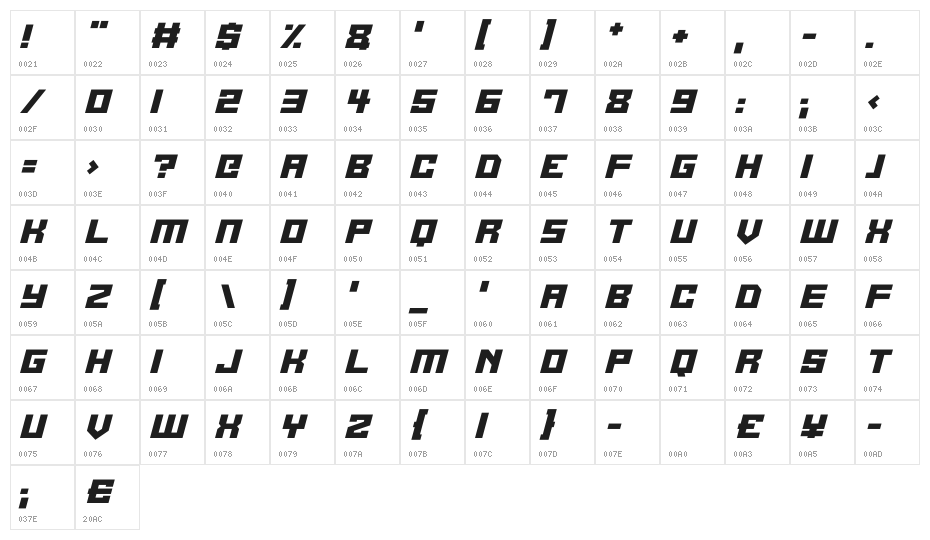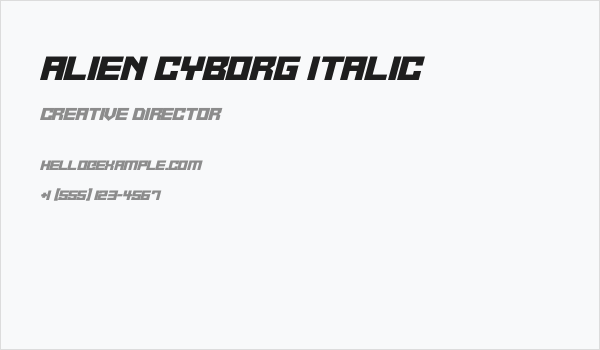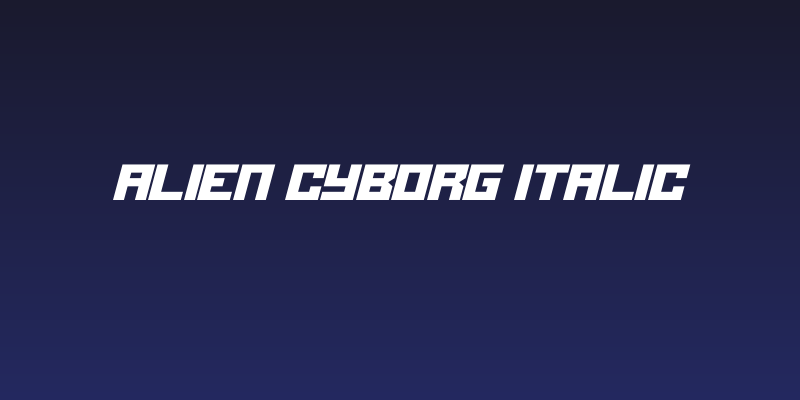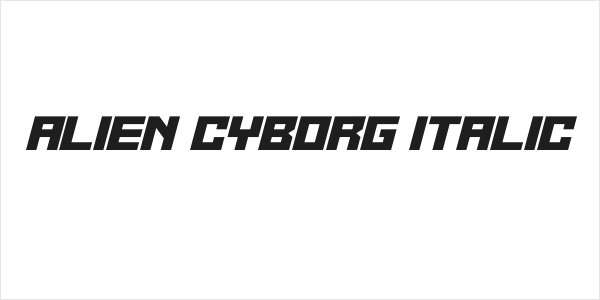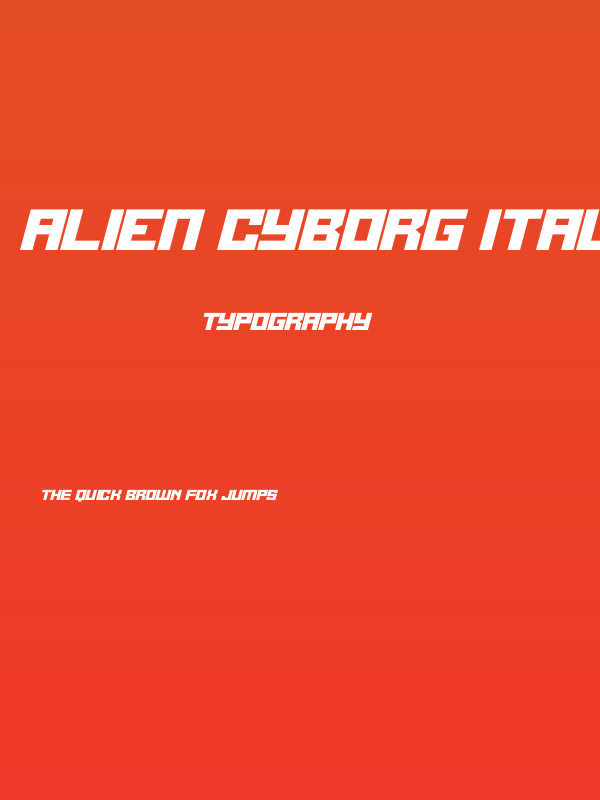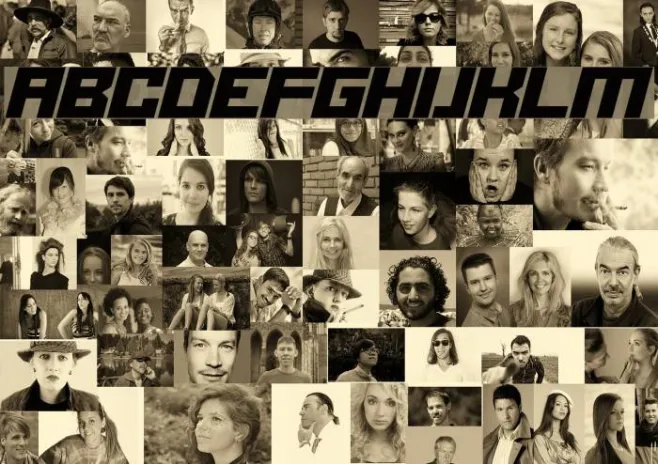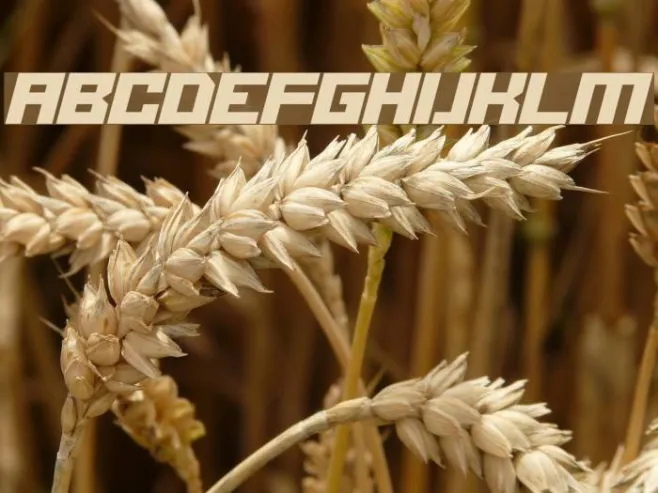
Alien Cyborg Italic Font
Alien Cyborg Italic Description
This font features a futuristic and angular design, characterized by its sharp edges and italicized stance. The letters are bold and have a distinct slant, giving them a dynamic and forward-moving appearance. The geometric shapes and clean lines contribute to a high-tech, modern aesthetic. The font maintains a consistent weight throughout, with medium contrast in stroke thickness. The character spacing is tight, enhancing the compact and cohesive look. This style is particularly suitable for projects that require a cutting-edge and innovative feel.
| Proposed Projects | Ideal for sci-fi themed designs, tech branding, video game titles, and futuristic posters. |